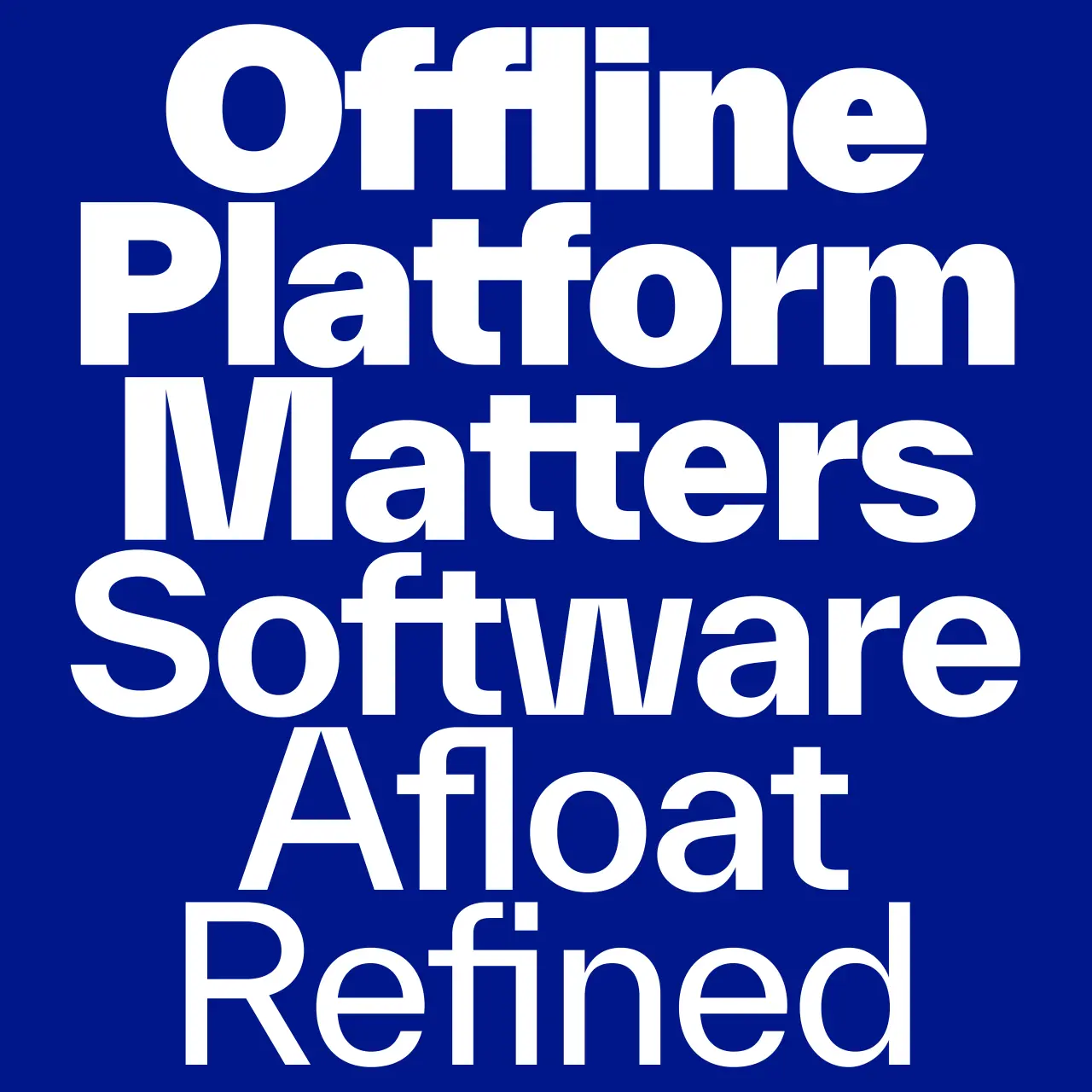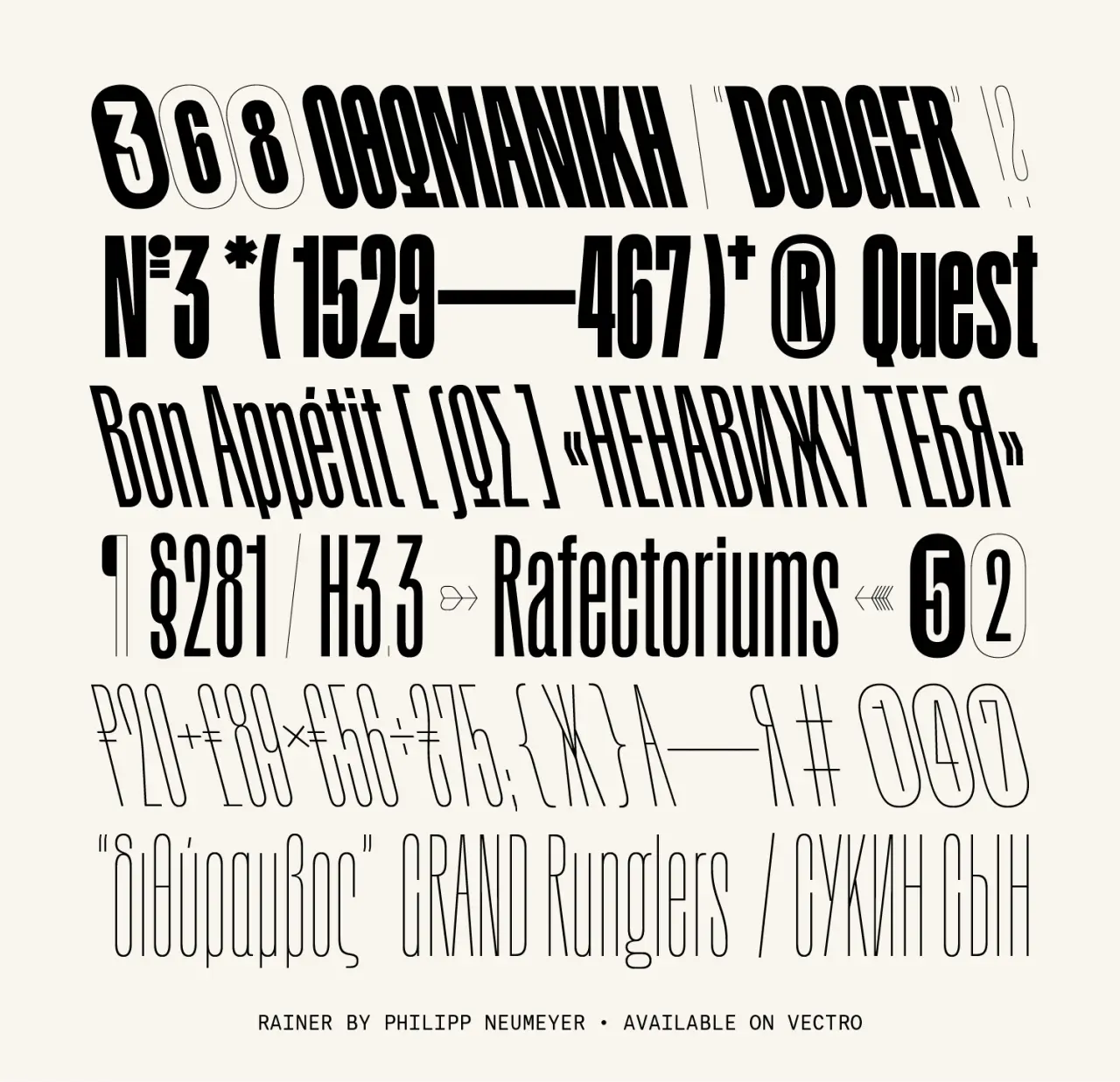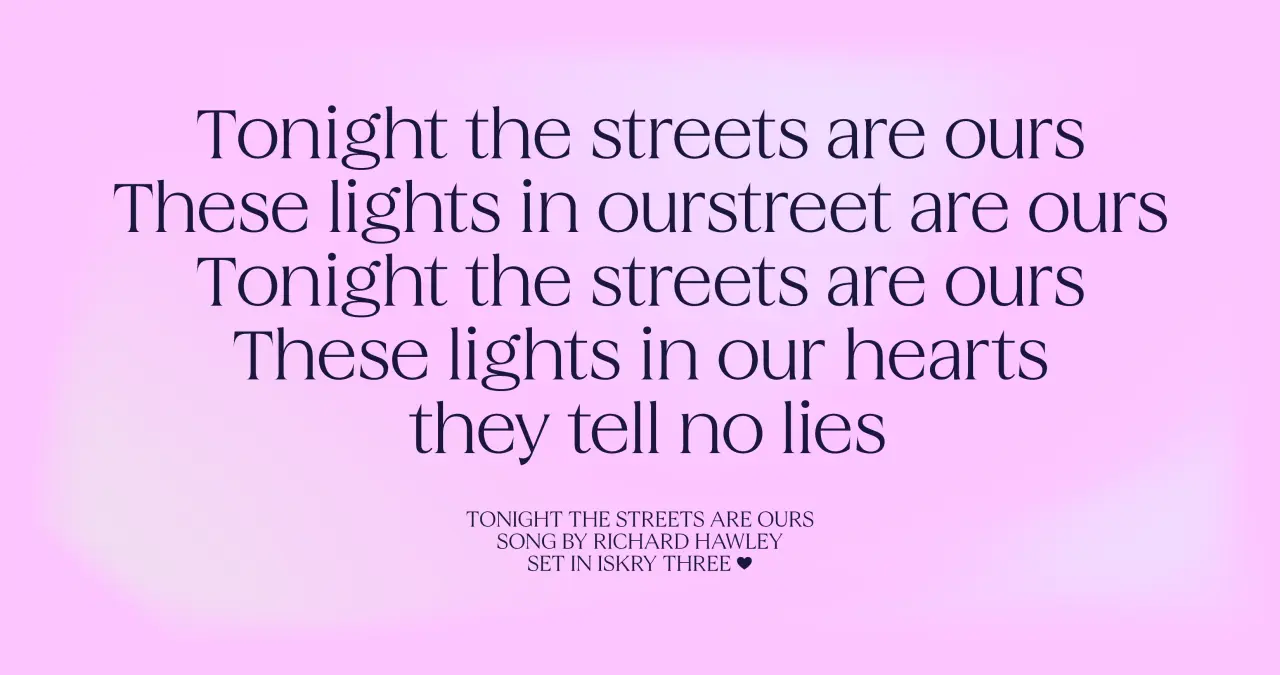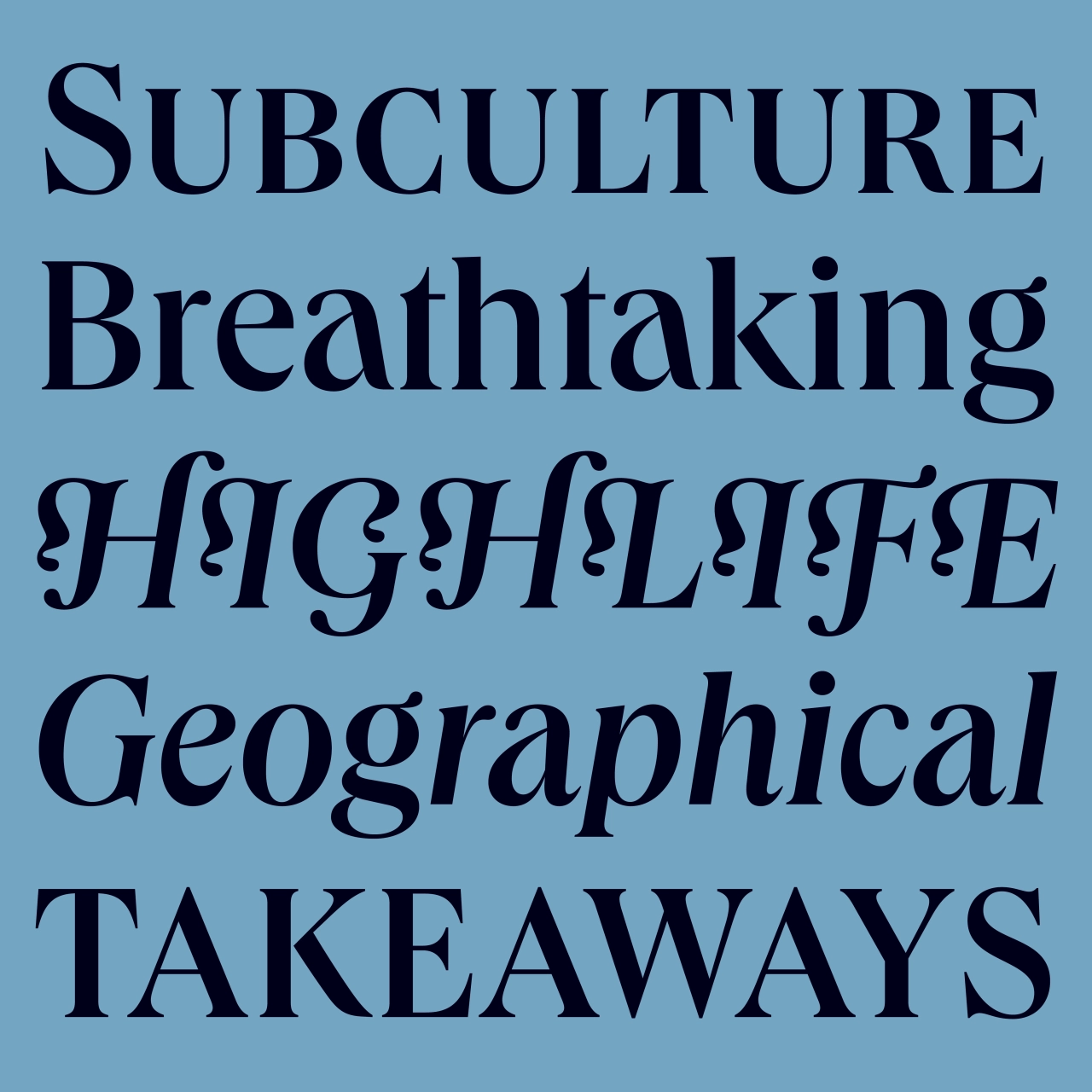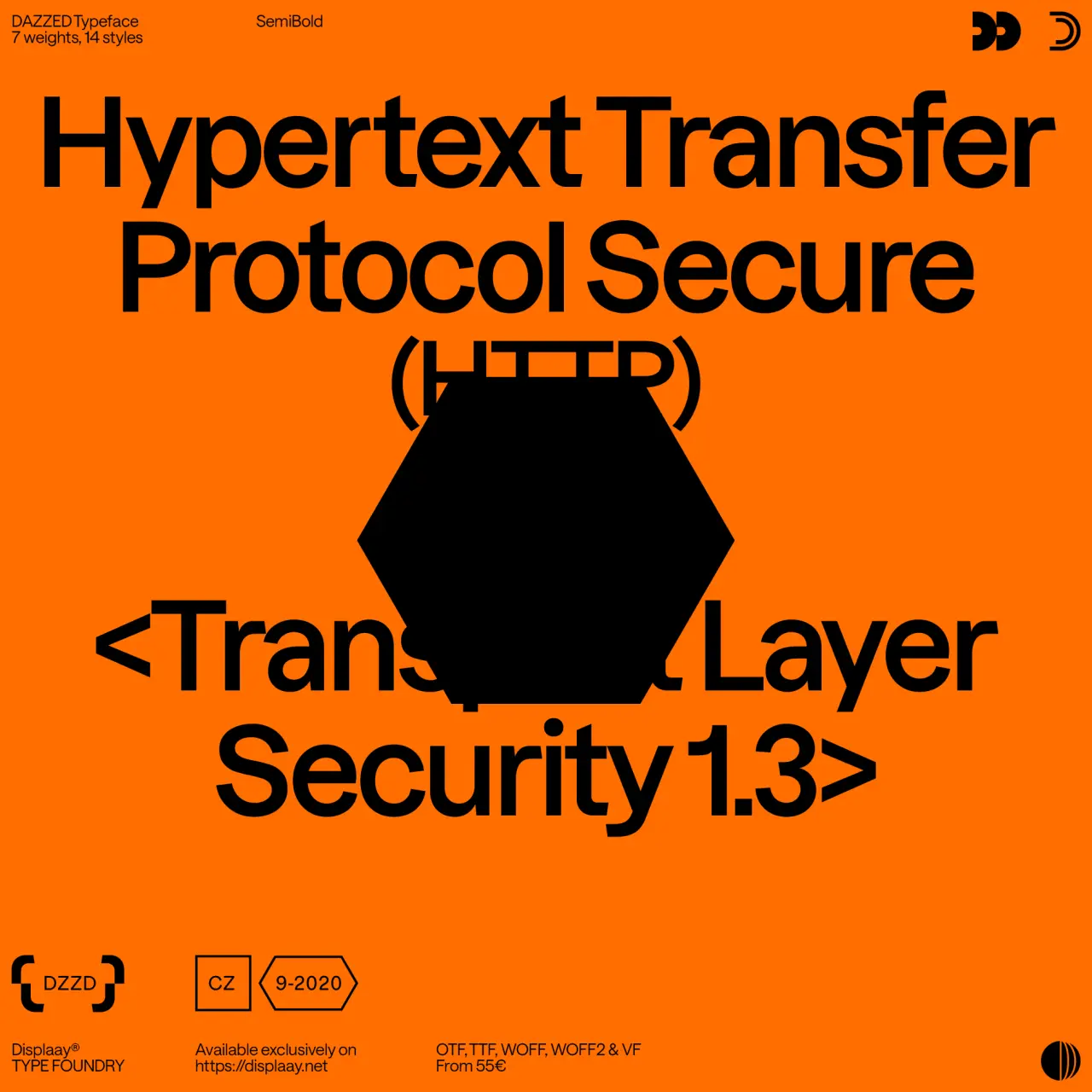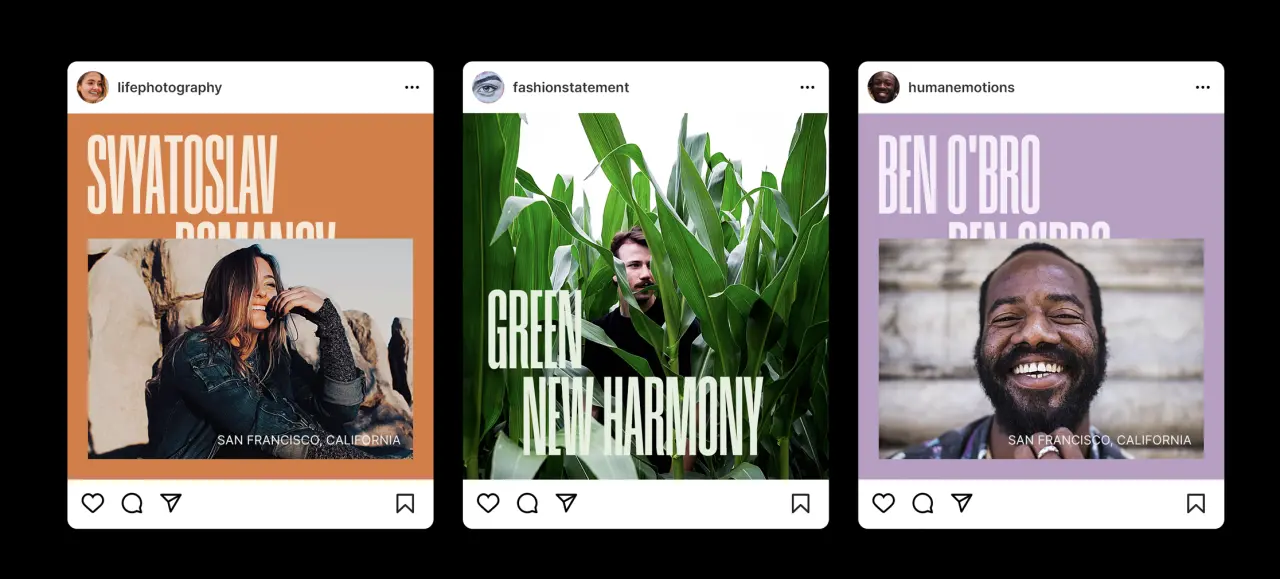
14 fonts to fall in love with: trending typefaces that designers adore
It's Valentine's Day this week, a celebration of love, passion and obsession. And if there's one obsession that designers feel truly passionate about, it's typography. But while font choice may be deeply personal, that doesn't mean you can't play the field once in a while.
After all, passions ebb and flow; similarly, designers' love affairs with fonts can sometimes be fleeting – like short, intense affairs that come and go. On the other hand, you'll often meet a typeface that truly lasts the distance, like Roboto – the marrying type. And really, don't we ultimately all want to settle down with a solid, reliable typeface that can support and comfort us throughout all our years of designing?
To help you find your perfect match, we're always keen to find out which typefaces leading creatives are most in love with, so we can share them with the rest of you. To celebrate Valentine's Day, then, we asked the community for the fonts they adore the most in 2023. We share the highlights below: 14 fonts for February 14th.
Or course, these choices are all subjective, but even if you don't like the fonts themselves, they all come from excellent foundries. So if you're still looking for your perfect typeface match, make sure to click through the links and see what else these fantastic sources have to offer. Plus, for more brilliant providers, see these 18 highly respected type foundries that remain fiercely independent.
1. Irregardless by Ohno Type
Irregardless is a sans-serif typeface with a fresh, legible and highly original look, created by James Edmondson of Ohno Type. To see how dynamic it looks in action, check out this inventive video he created to promote it on launch.
We'd love to be able to share the thinking behind this unusual font, but James isn't altogether clear about how it came about. "Some projects are a clear-cut path," he explains. "Irregardless exists at the other end of the spectrum. I have no idea where it came from, and for much of the time I spent working on it, I had no idea where it was going. It was an exercise in fighting my impulses and drawing habits to create something that felt new and uncomfortable."
Released in May 2021, it's one of many fun and original typefaces from Ohno Type, which James launched in 2018. As well as creating fonts, the foundry is committed to making Ohno a positive force in the graphic and type design community. That includes talking to students, giving lectures, offering occasional free critiques, and free educational content.
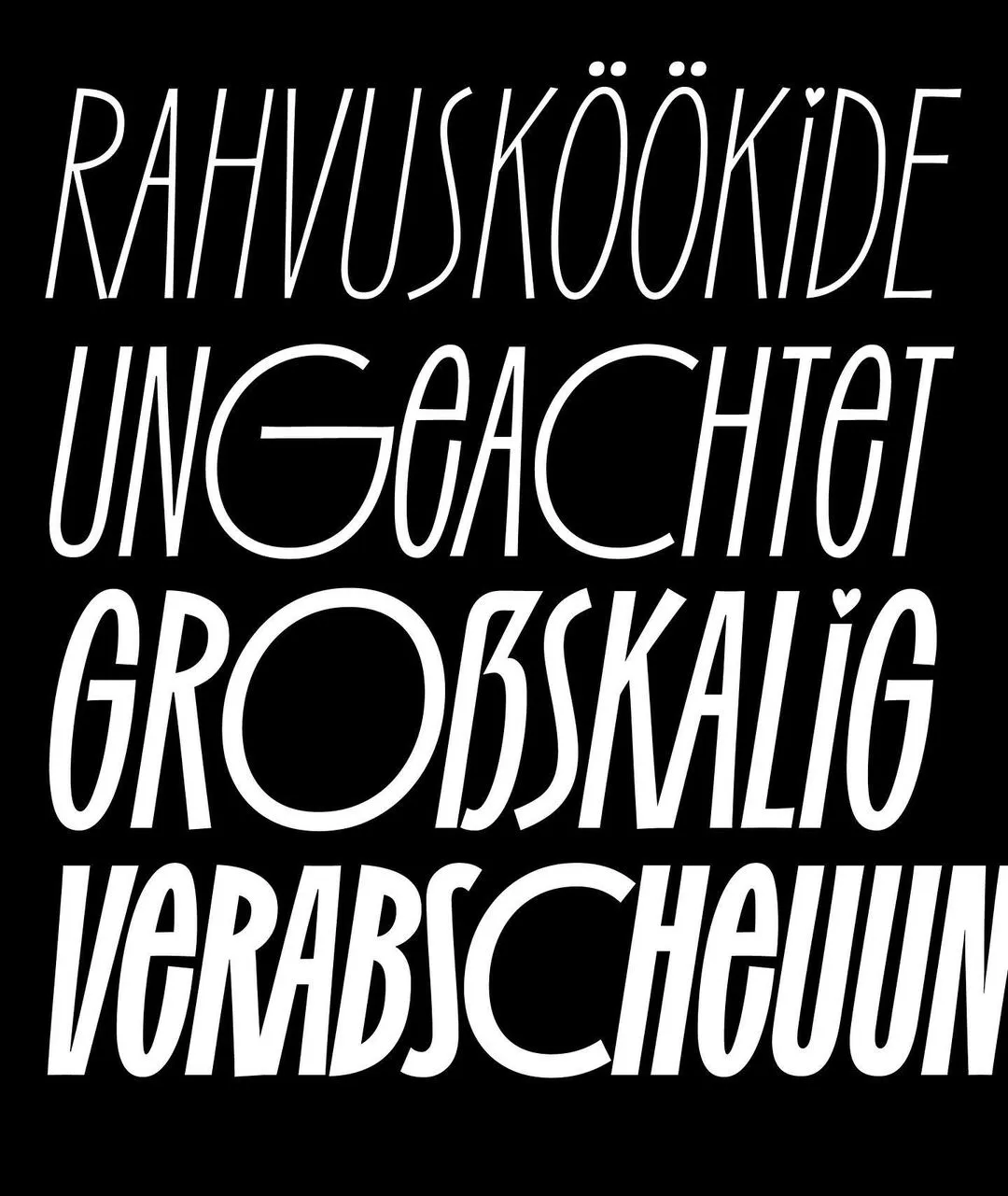
Irregardless by Ohno Type
2. NaN Tragedy by NaN
NaN Tragedy is an original typeface created by J.B Morizot of NaN in text, italic and display styles. Its makers describe it as the "chimaera child of two epochs. Its structure and energy are inheriting the pace of a monacal scribe while its geometrical detail treatment lies in the atom accelerator at CERN."
If that's a little obtuse for you, then what they're driving at is the idea of oppositions lying in the same body: "Classical but contemporary. Unconventional but functional. Energetic and lively but sturdy. Extravagant but evident and simple."
NaN Tragedy Text combines the functionality of a text typeface with unconventional shapes, an economic approach and optical corrections to display features, such as an exaggerated calligraphic contrast axis. NaN Tragedy Display, meanwhile, is a more compact and contrasted design, pushing finesse and character further for tight and impactful headlines.
First released in 2019, it's one of many great typefaces designed by NaN, a graphic design and typeface design studio based in Berlin and Sydney. "Together with our wonderful rag-tag team of collaborators, crew and clients, we explore the relationship type has with code and technology – delivering projects with purpose," they say.
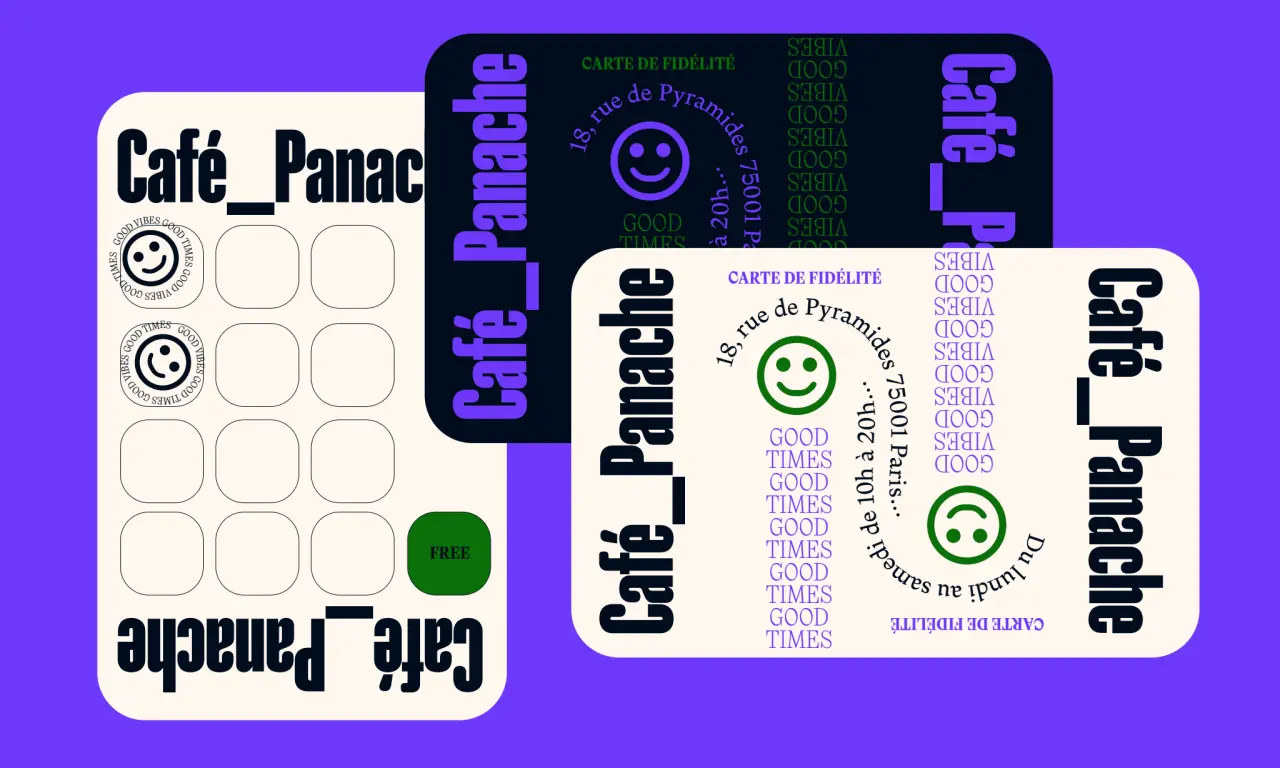
Nan Tragedy by NaN
3. Everett by TYPE.WELTKERN
Everett is a sans-serif font with a minimalist design. Its symmetrical structure is balanced with an organic drawing and a particular digital flavour. Strong typographic details add a high tension while keeping reading comfortable, striking a good balance between being graphic and fluid.
Low ascenders and descenders allow designers to set texts with tight line spacing, resulting in economising space. The fonts are fully equipped with various stylistic sets, ligatures and case-sensitive forms, among other features. The weights variation from Hairline to Super with corresponding italics form a coherent and versatile family, making it suitable for book design, poster design, branding, signage systems and more.
Everett originally emerged during Nolan Paparelli's studies at ECAL (University of Art & Design Lausanne) in 2015 and was inspired by the work of the American photographer Daniel Everett. As Nolan developed the typeface, it quickly became more personal and evolved into the designer's own take on the grotesque genre. It was finally launched to the public in March 2021.
Overall, then, this is a thoughtful and inventive approach to type that's typical of Klim, a type foundry based in New Zealand. And that's no accident. "Our foundational ethos is 'a thing well made'," they explain. "Our typefaces combine historical knowledge with rigorous contemporary craft."
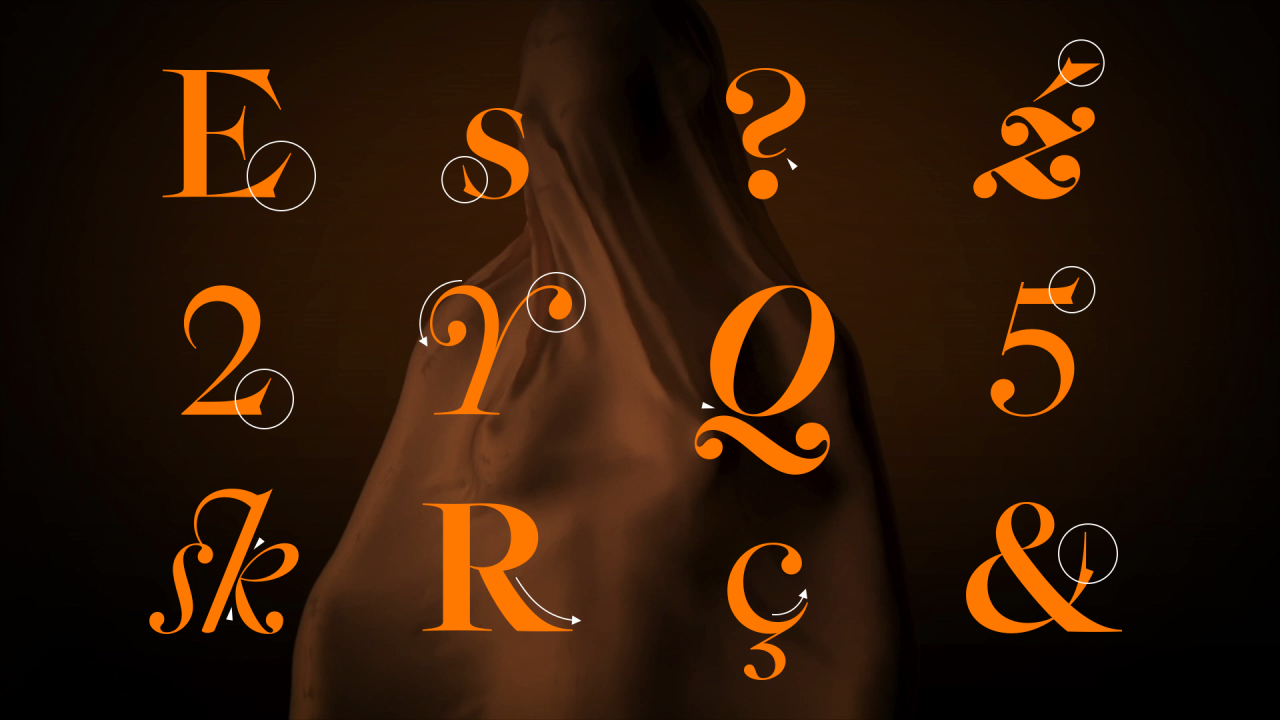
Epicene by Klim